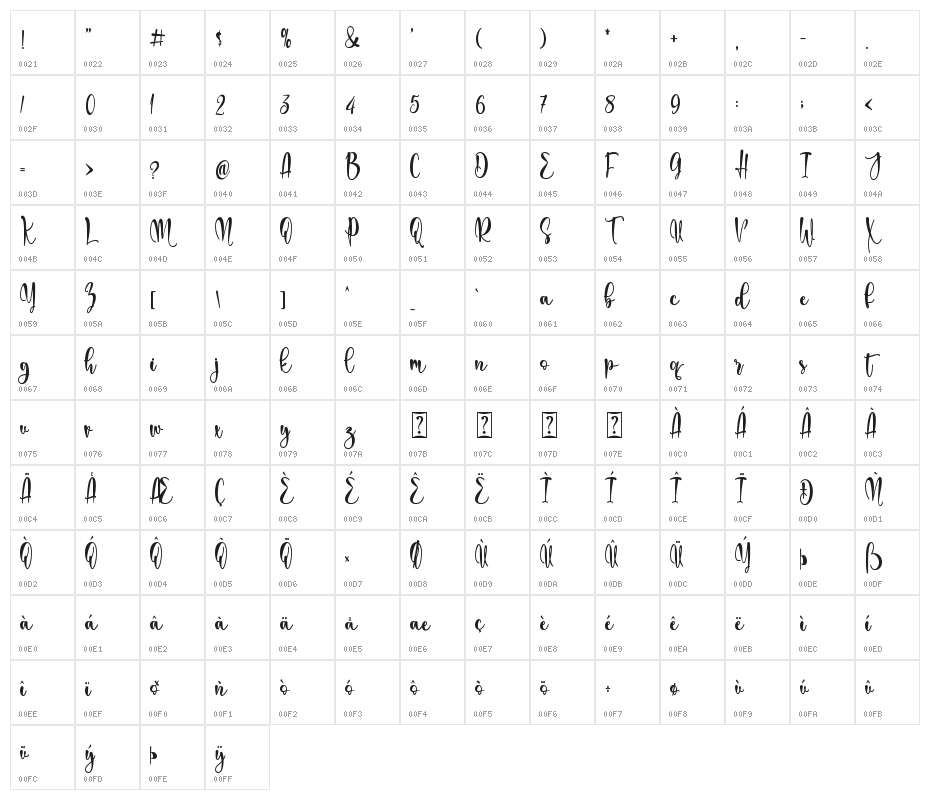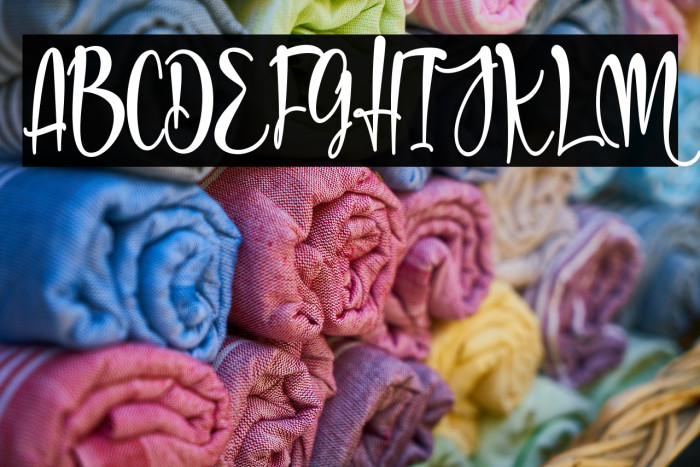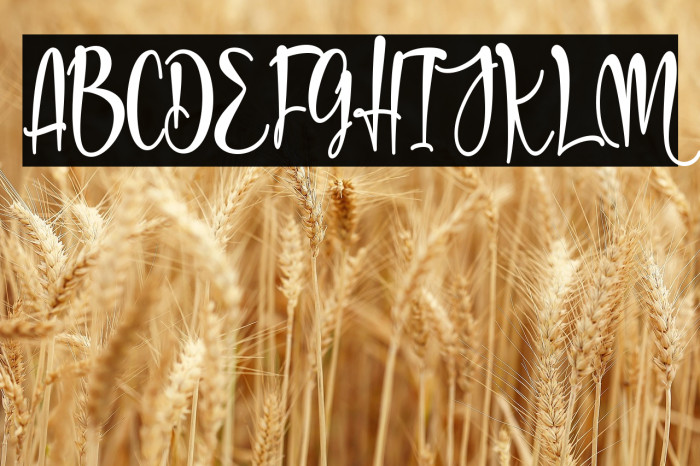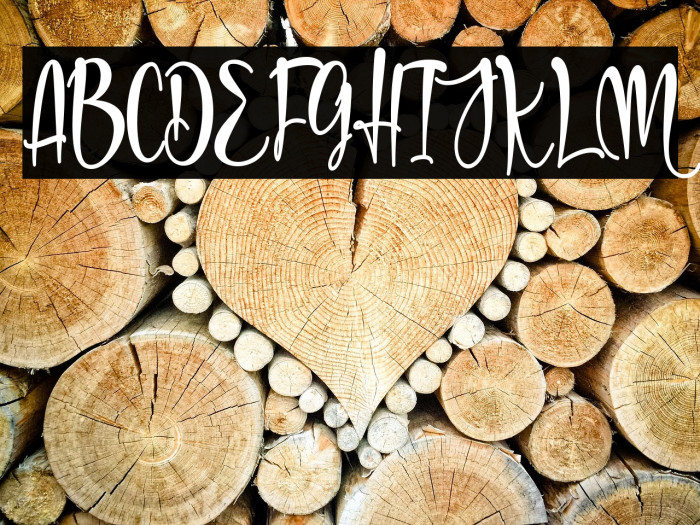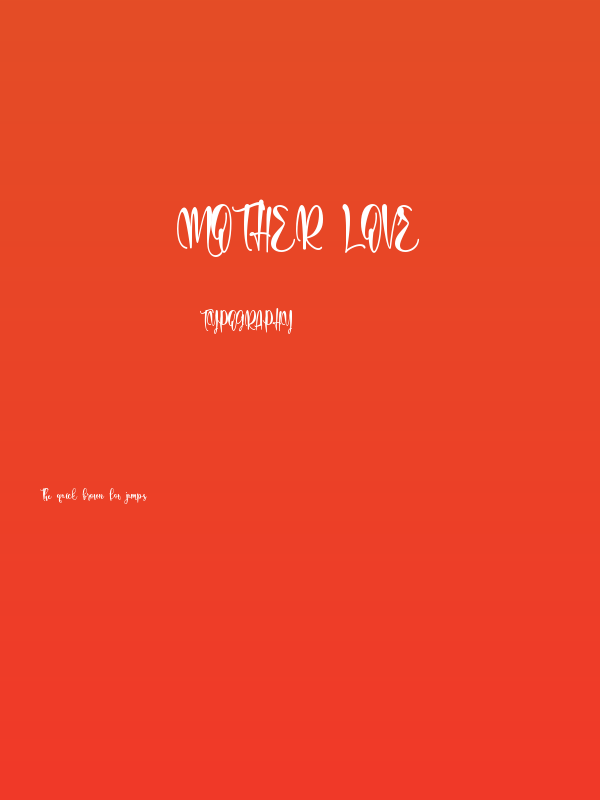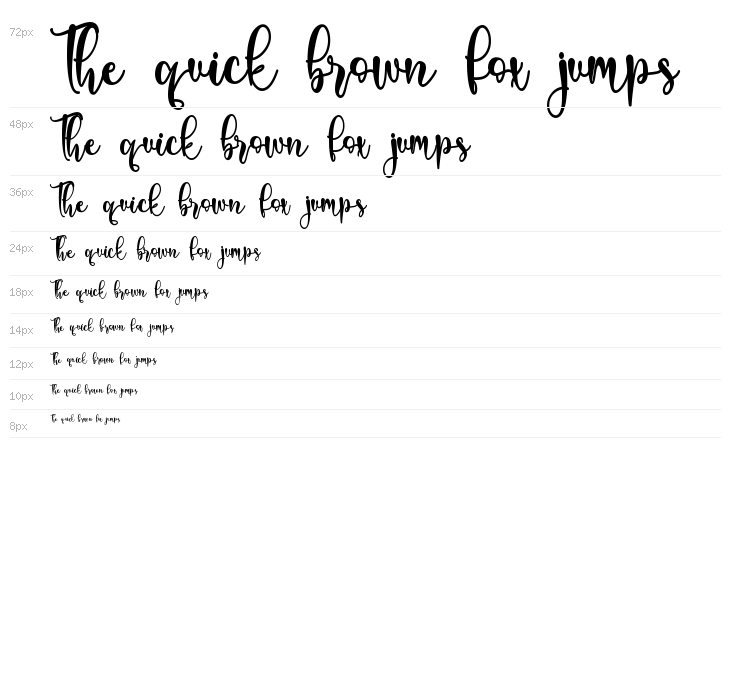
Mother Love Font
Mother Love Description
This font features a flowing, cursive style with a playful and elegant appearance. The uppercase letters are bold and dynamic, with sweeping curves and loops that give a sense of movement and grace. The lowercase letters maintain the same fluidity, with a slightly more compact and rounded form. The numerals are consistent with the overall style, offering a harmonious blend of curves and straight lines. Special characters are creatively integrated, maintaining the whimsical and artistic feel of the font. This typeface is perfect for projects that require a touch of elegance and personality.
| Proposed Projects | Ideal for wedding invitations, greeting cards, branding, and decorative signage. |